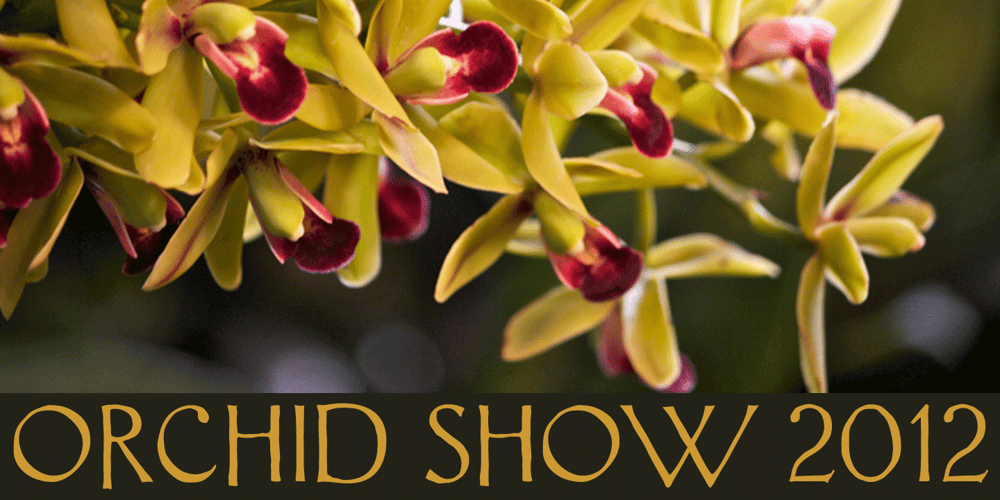
Laureat
Laureat font
Laureat Font Family was designed by Jason Castle and published by CastleType. Laureat contains 1 styles and family package options. Based on hand-drawn letters from a Russian poster. The Cyrillic version is still in development. Uppercase only, but each letter has four different sizes for creating very interesting typography.